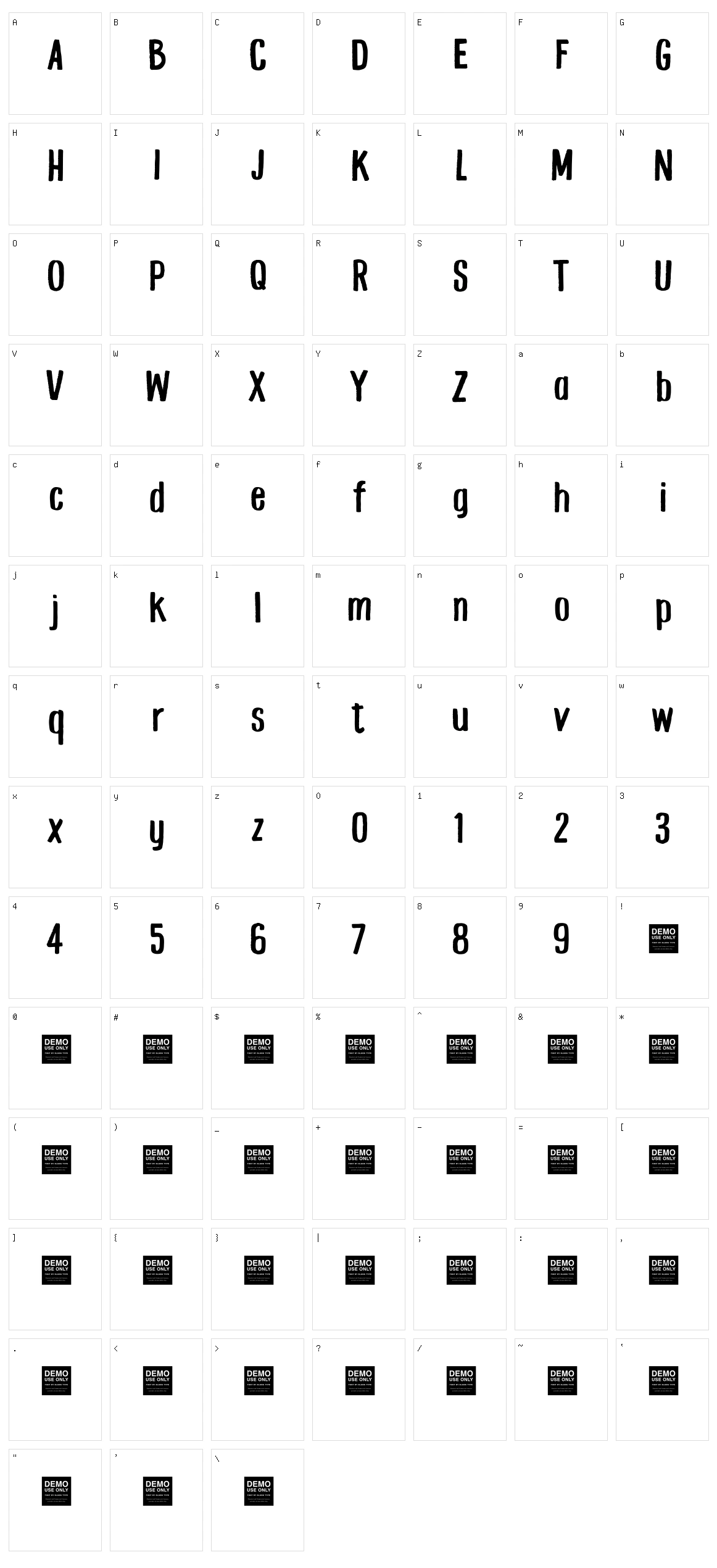
The free font Hall Trash is carefully designed by BLKBK Fonts, showcasing a thoughtful balance of creativity and usability and falls under the Eroded font style. When you download the ZIP file, it contains only 35.16 KB of font files, making it lightweight and quick to download. Please review the license details below to understand permitted usage and distribution rights. If license information is not available, we recommend using this font for personal projects only or contacting the author directly for commercial usage permissions.